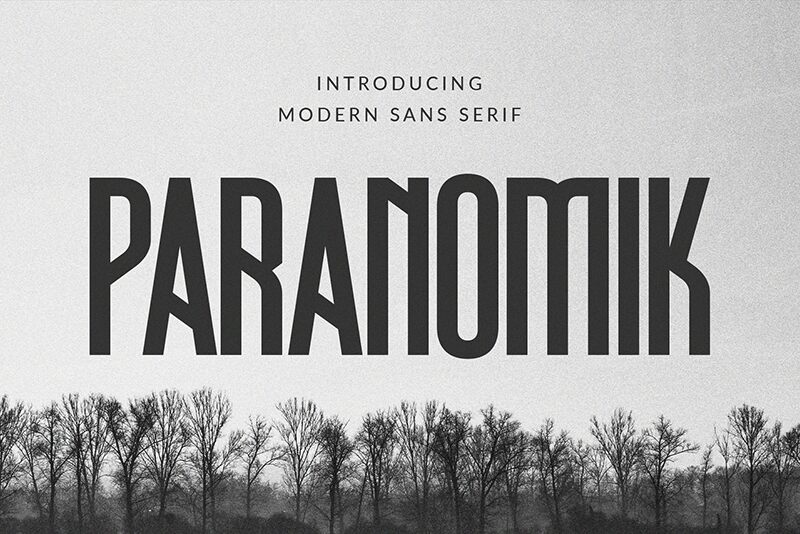
Paranomik Regular
Paranomik by BrandSemut is a captivating sans-serif font that exudes a bold, modern flair. Its condensed width and sharp, angular strokes create a distinctive visual impact, evoking a sense of strength and commanding presence. The crisp, minimalist aesthetic of Paranomik lends itself to a variety of design applications, from sleek branding and corporate identities to impactful headlines and eye-catching displays.
This versatile font's versatility shines through in its ability to seamlessly integrate into diverse design contexts. Its concise, streamlined letterforms make Paranomik an excellent choice for projects requiring a powerful, attention-grabbing typographic treatment, such as event posters, product packaging, or digital interfaces. The font's condensed nature also allows for efficient use of space, making it a practical option for projects with limited layout constraints.